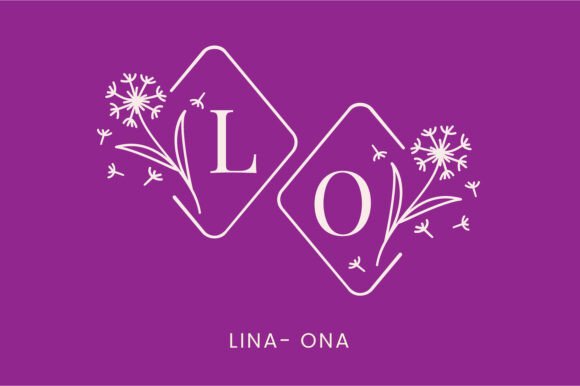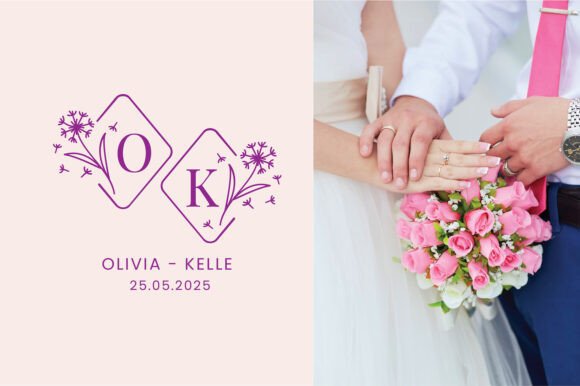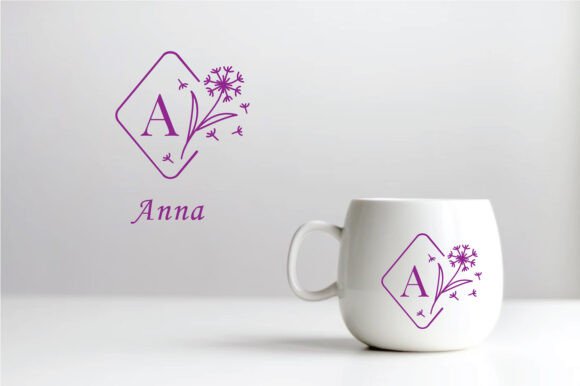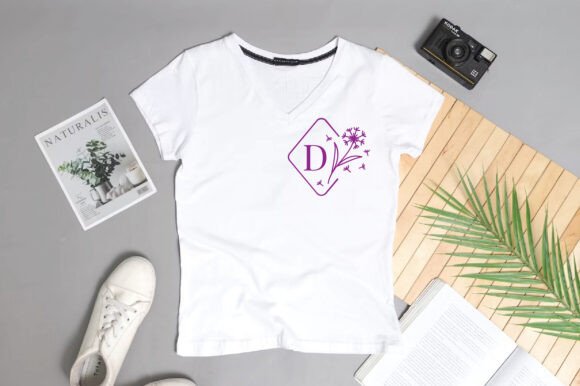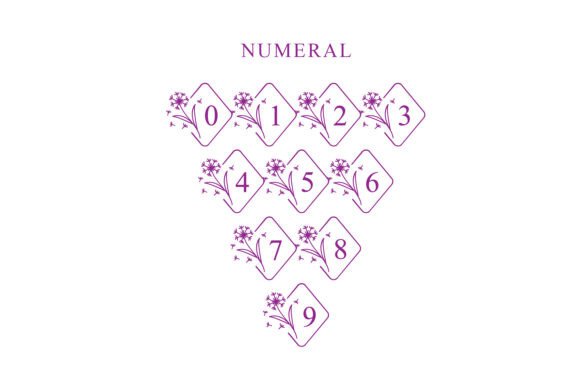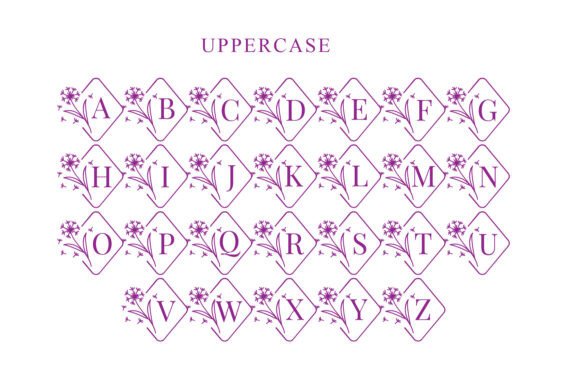
Introduction to Dandelion Floral Monogram Font
Add a whimsical and airy touch to your design with the Dandelion Floral Monogram.
Each letter is beautifully adorned with dandelion motifs, capturing the fleeting magic of nature in motion This typeface is perfect for branding, scrapbooking, DIY crafts, baby shower invitations, and romantic designs.